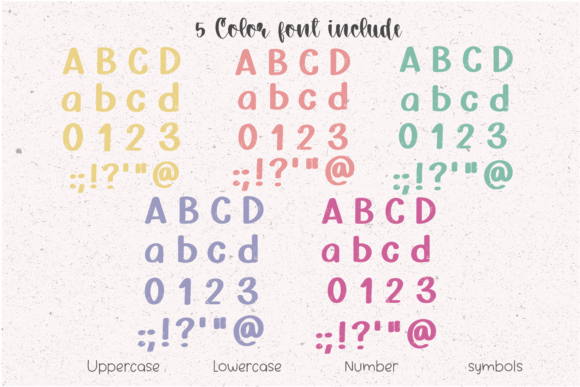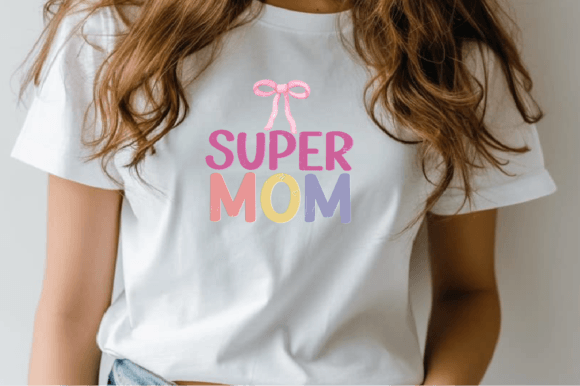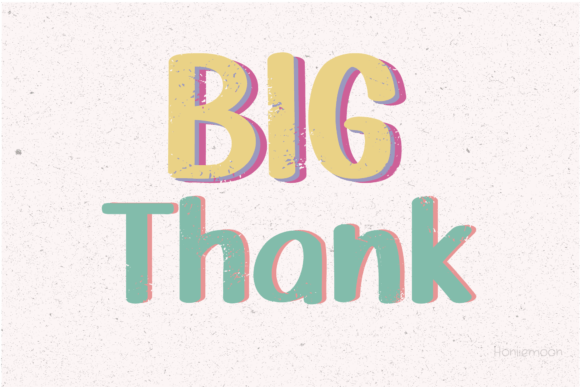
Introduction to Retro Vintage Font
Have you ever been working on a creative project, pouring over design ideas and searching for the perfect element to bring it all together, only to find yourself stuck in a sea of generic fonts? That’s where the magic of the Retro Vintage Font comes in – a simple yet elegant display font that brings a touch of nostalgia and timeless charm to any design.
Whether you’re a seasoned designer or just starting out, the Retro Vintage Font is an invaluable resource for adding a unique touch to your work. With its high-quality design and transparent background, it’s the perfect addition to any project looking to stand out from the crowd. And the best part? This versatile font is available for free download, making it an accessible design resource for creatives of all levels.
Key Features of Retro Vintage Font
- Retro aesthetic with a distressed, vintage look, perfect for creative projects requiring a unique design resource.
- Perfect for use in graphic design, digital art, and other creative pursuits where a distinctive, retro-vintage look is desired.
Honest Review: Retro Vintage Font
I recently had the chance to work with the Retro Vintage Font and I must say, it was a great experience. As a designer, I’m always on the lookout for high-quality design resources that can elevate my creative project. And, this font definitely delivered.
- ✨ Unique and stylish design that evokes a sense of nostalgia
- ✨ Highly customizable, making it perfect for various design projects
One of the things I loved about this font is its versatility. I was able to use it for both digital and print projects, and it looked amazing in both cases. The transparent background also made it easy to work with, as I could layer it over other design elements without any issues.
- ⚠️ Limited character set, which may not be ideal for longer text
- ⚠️ Not suitable for small text sizes, as it can be difficult to read
Overall, I’m really impressed with the Retro Vintage Font. It’s a great addition to any designer’s toolkit, and I would definitely recommend it to anyone looking for a unique and high-quality font.
Retro Vintage Font
The Retro Vintage Font is a high-quality design resource ideal for creative projects that require a unique and nostalgic touch. This font features a distressed, worn look that evokes the feeling of old, vintage posters and advertisements.
Tips for Getting the Most Out of the Retro Vintage Font
To get the most out of the Retro Vintage Font, be sure to:
- Use it in conjunction with other design elements, such as distressed textures and vintage graphics.
- Experiment with different font sizes and styles to create a unique look.
- Use a transparent background to create a sense of depth and dimension.
The Retro Vintage Font is perfect for:
- Creating vintage-inspired graphics and posters.
- Designing logos and branding materials with a unique, nostalgic touch.
- Adding a touch of vintage charm to social media posts and online content.